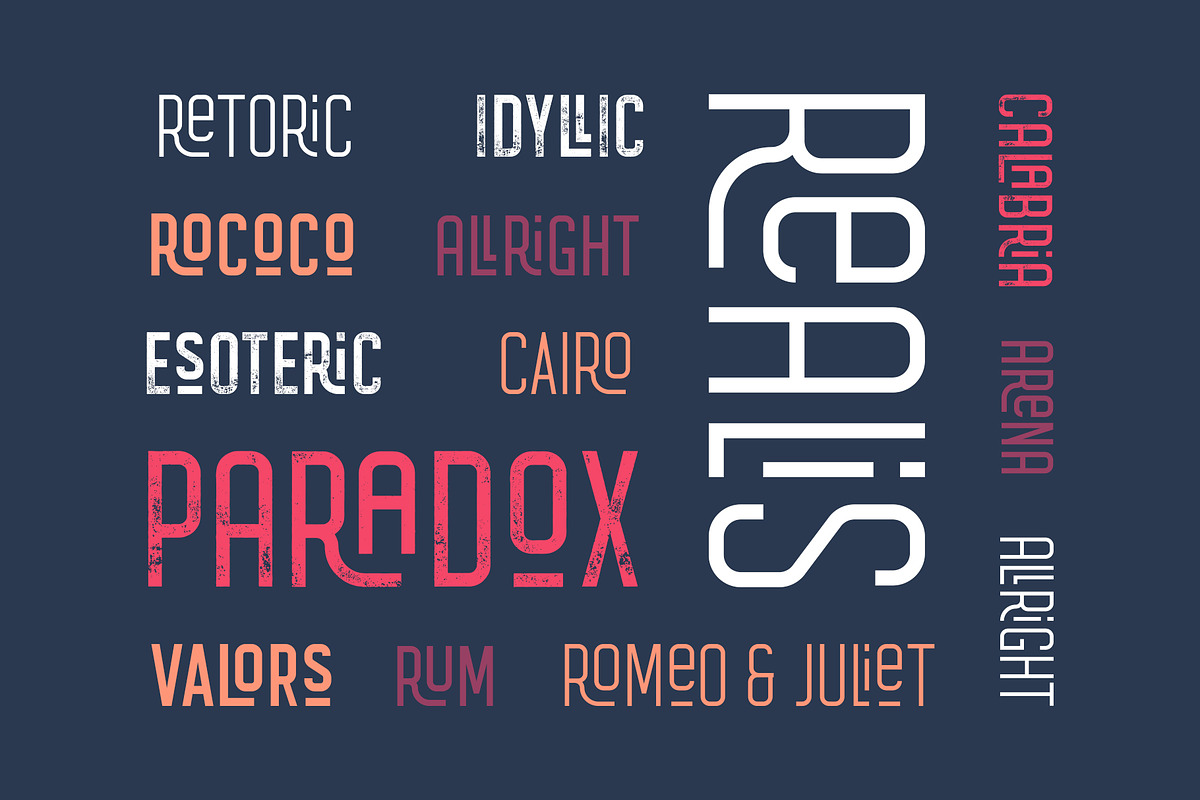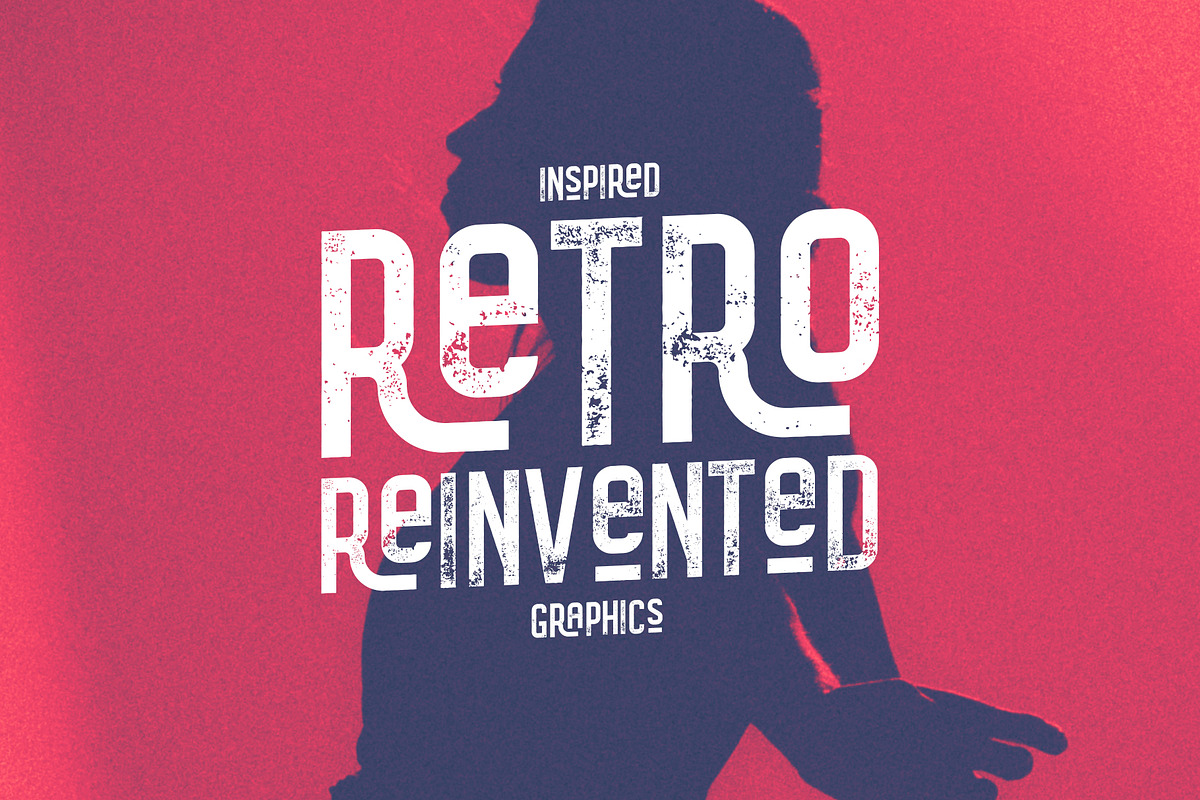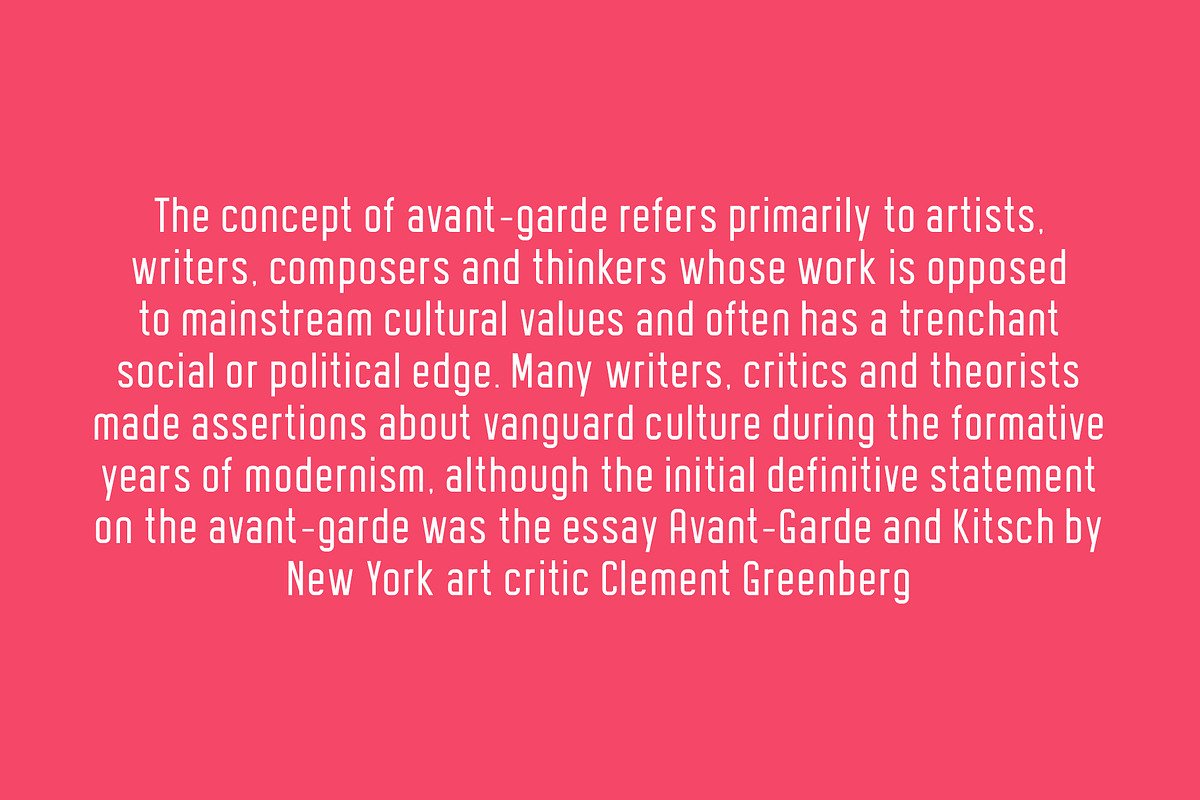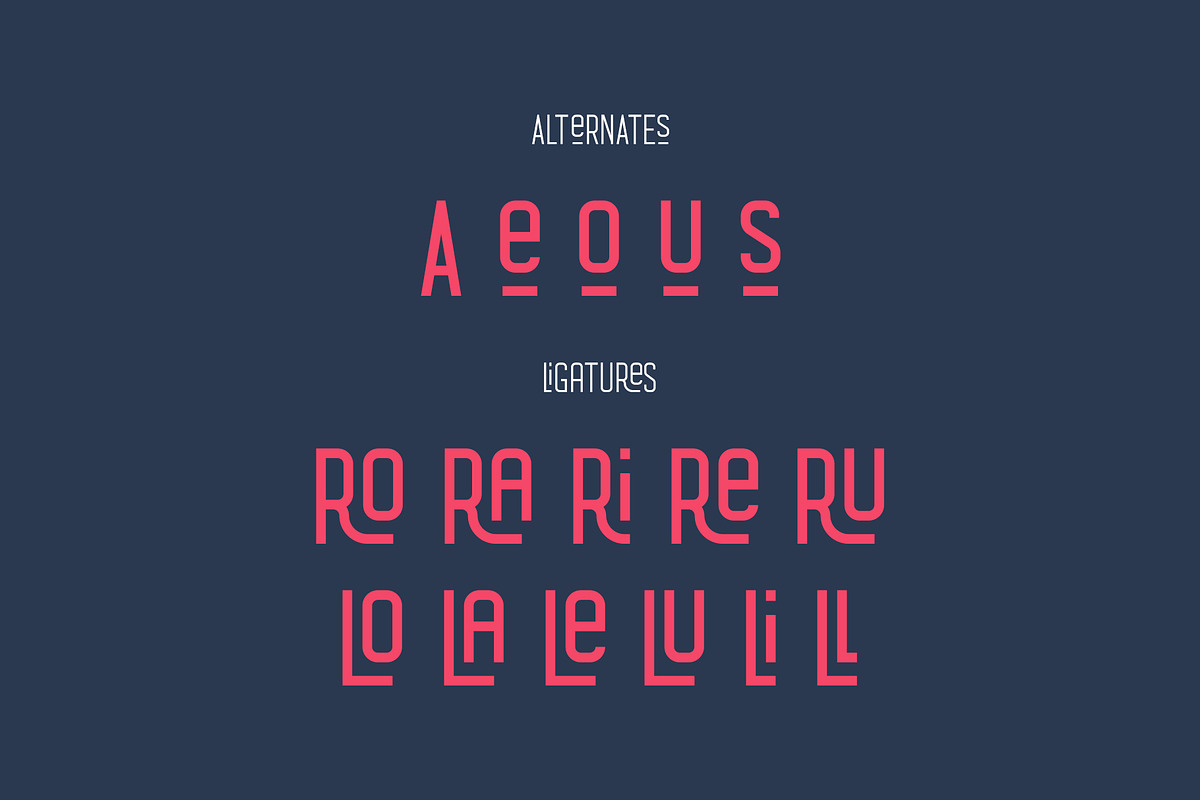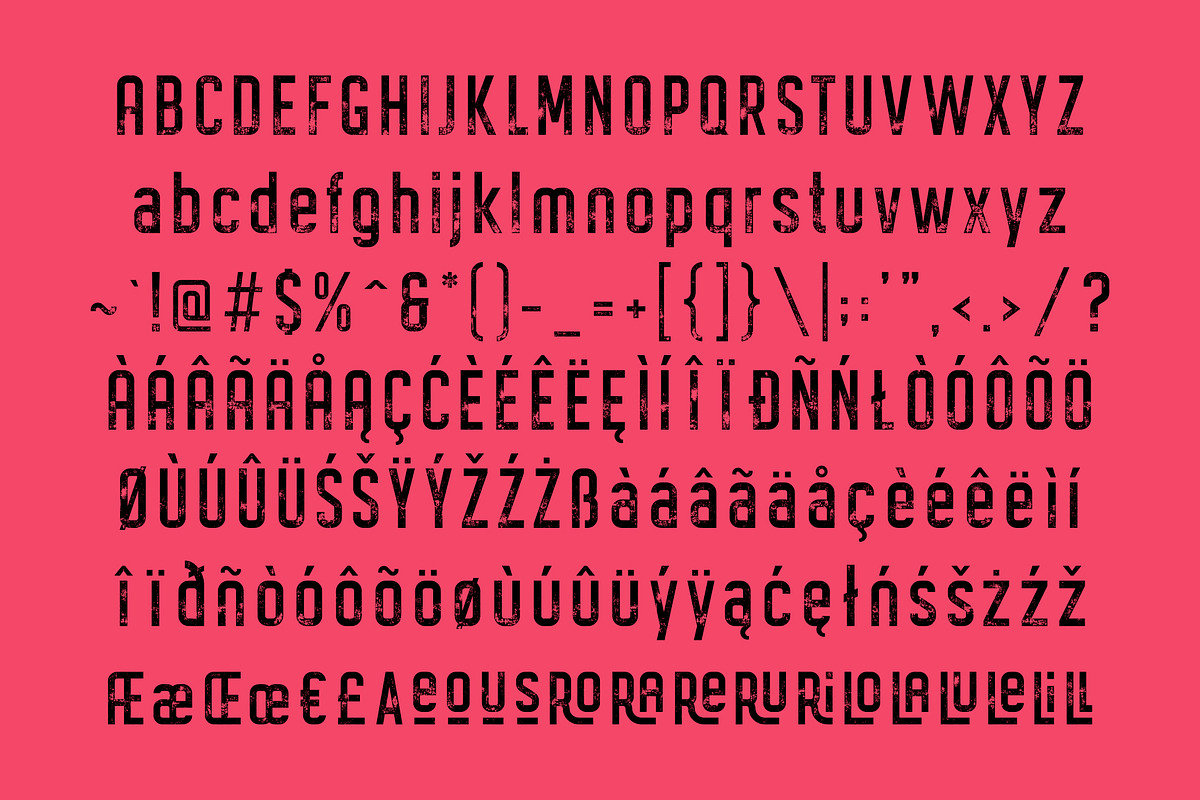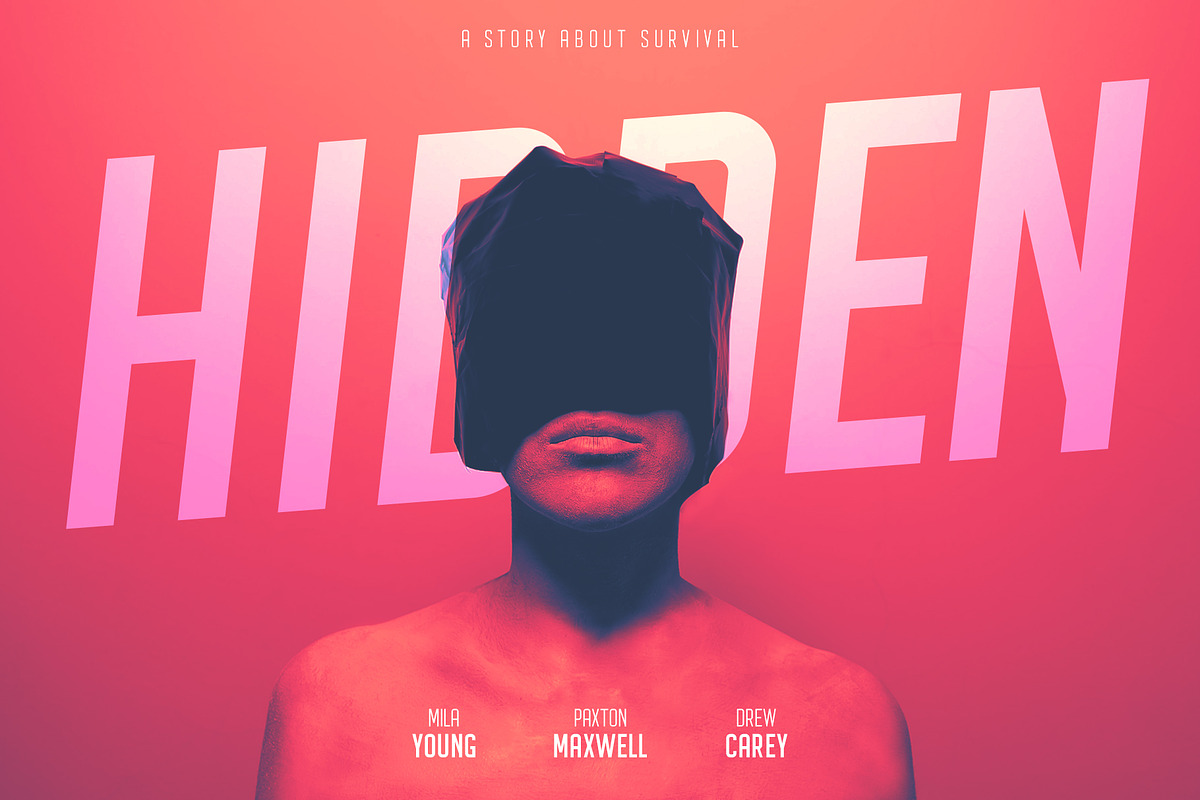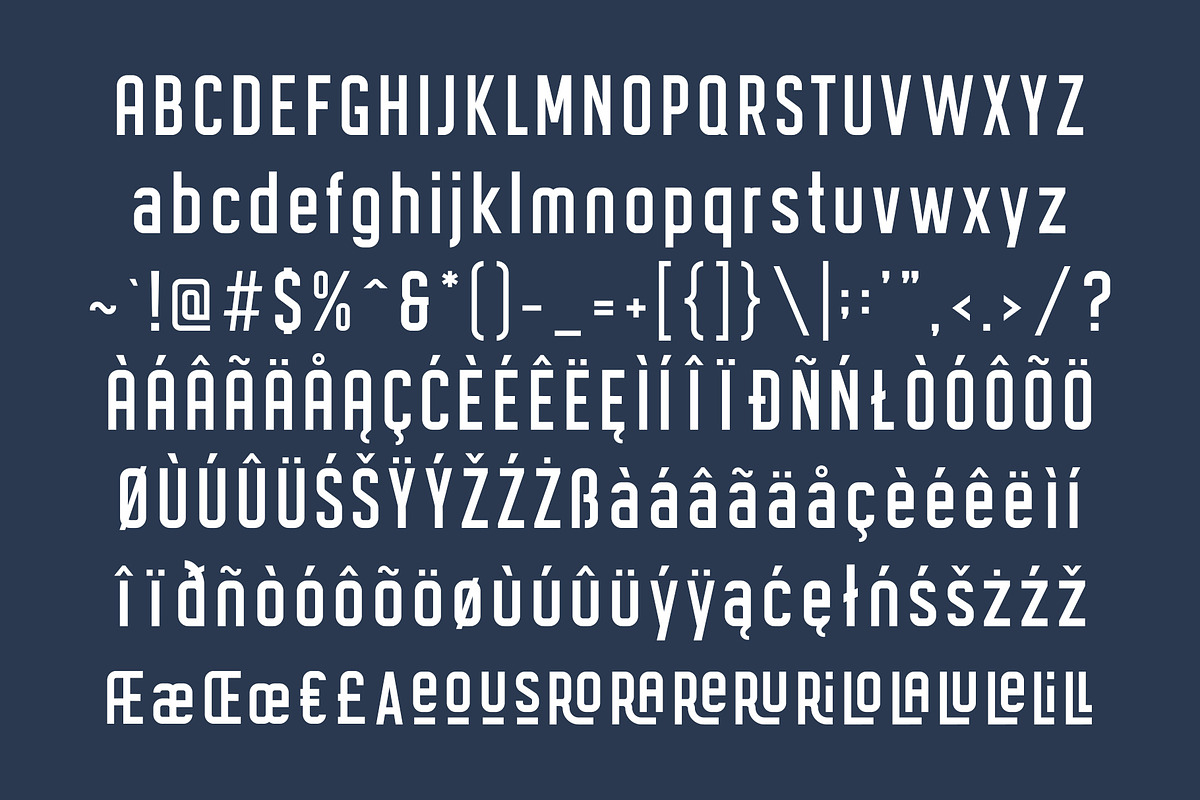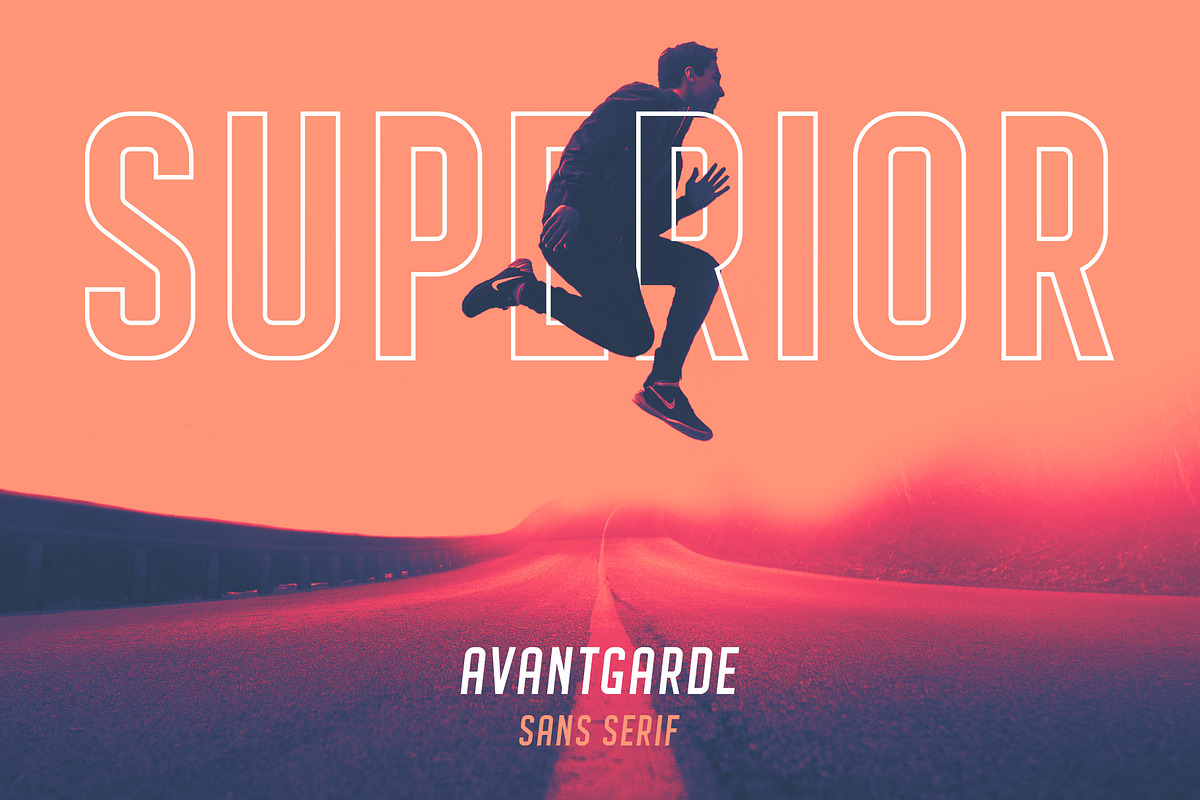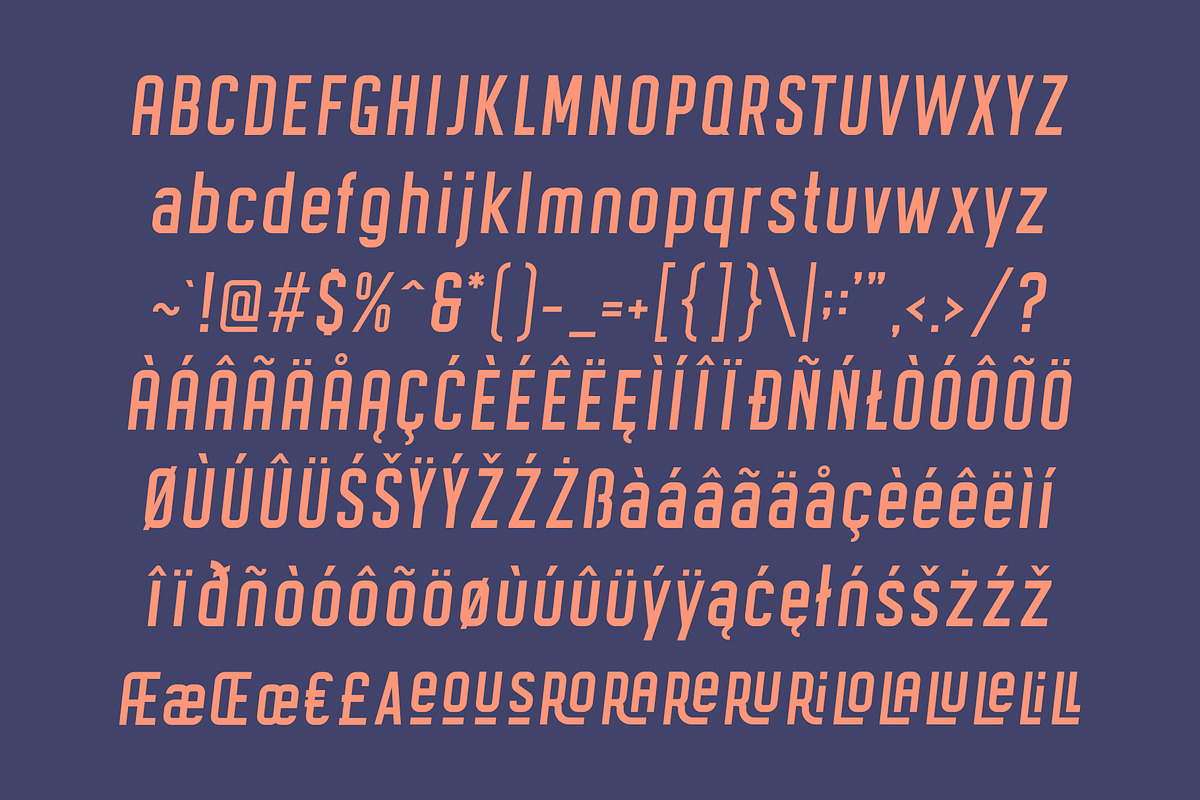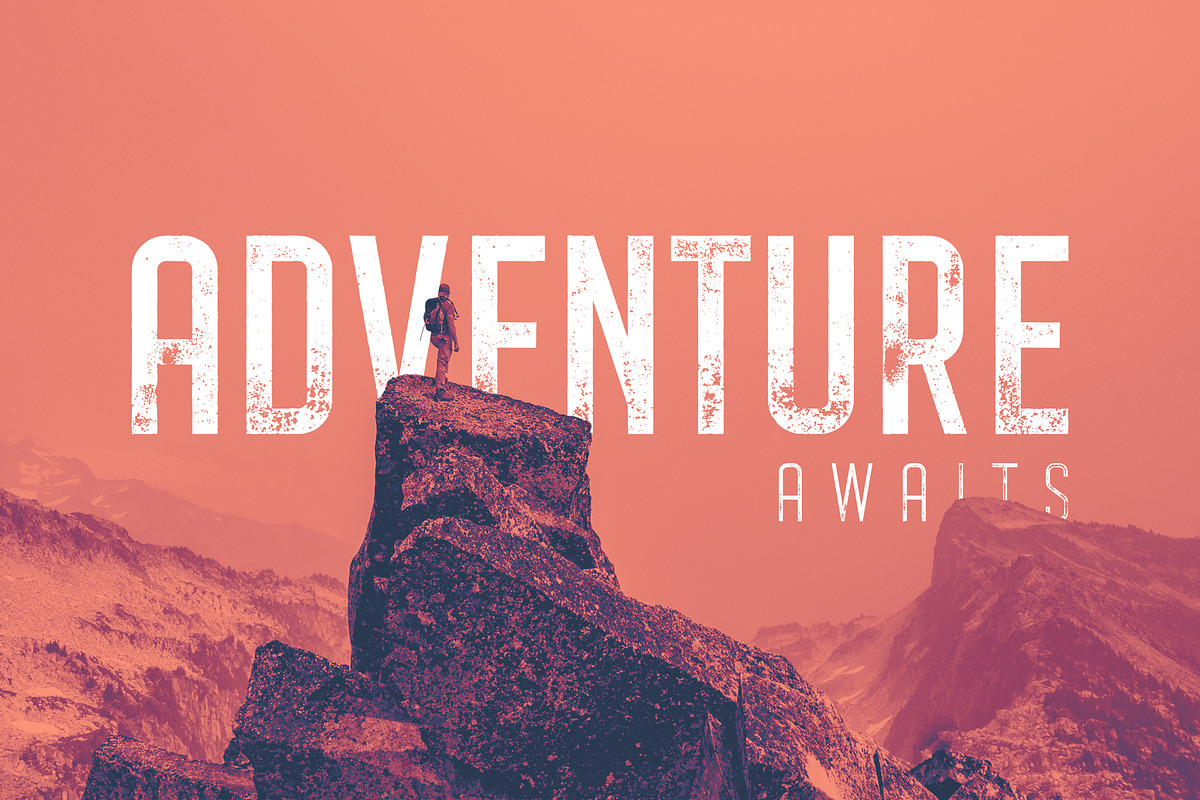
Avantgarde Sans Serif Family
Avantgarde is a powerful sans serif font family made to be a perfect choice for titles and headlines but it's versatile enough to be a good fit for a multitude of projects. It works very well for posters and other prints as well as for logos or other graphics that require strong and impactful typography.
- 3 font weights
- Numerals and punctuation
- Alternates and ligatures